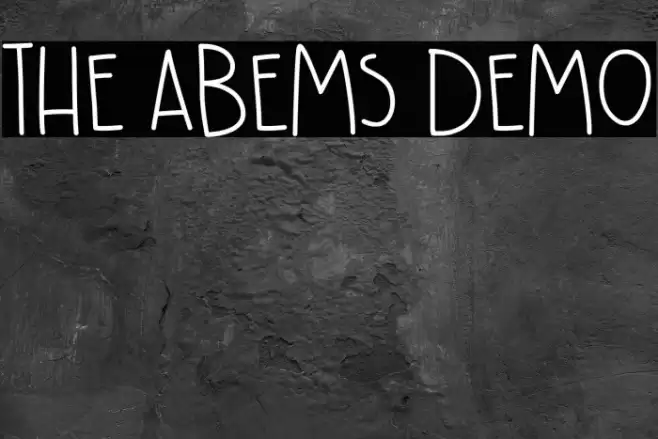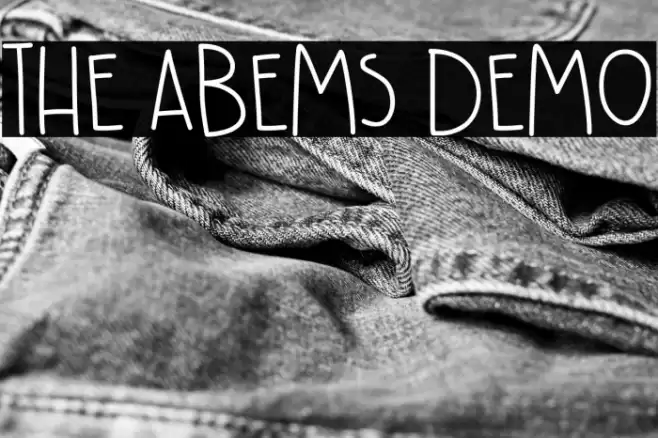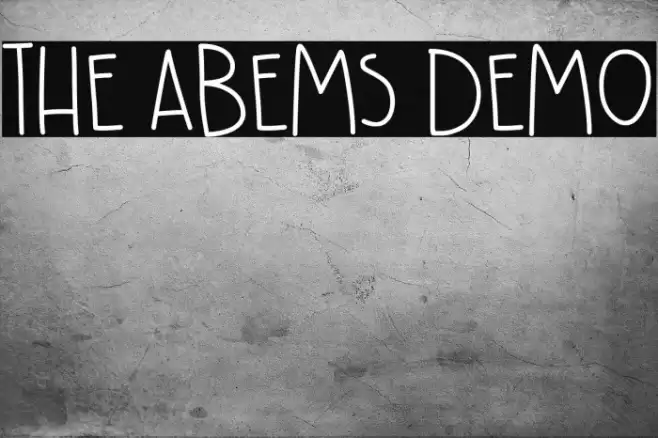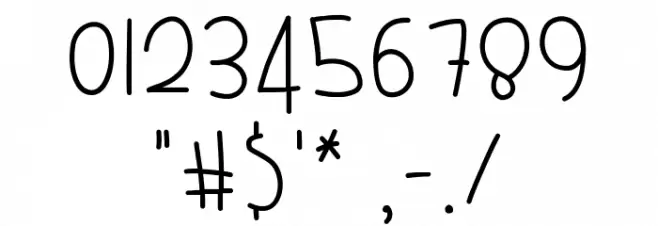
The Abems Demo Font
The Abems Demo Description
This font features a playful and informal handwritten style, characterized by its tall, narrow letters and slightly irregular strokes. The uppercase and lowercase letters maintain a consistent height, giving it a uniform appearance. The numbers and special characters follow the same playful aesthetic, making it suitable for casual and creative projects. The strokes are consistent in width, providing a clean and approachable look. This font's simplicity and charm make it ideal for projects that require a personal touch.
A playful, handwritten font with tall, narrow letters and consistent strokes from Regular fonts.
- Proposed Projects: Ideal for greeting cards, children's books, casual branding, and social media graphics.
- Overall Style: Casual
- Use Case: Headlines, Informal text, Creative projects